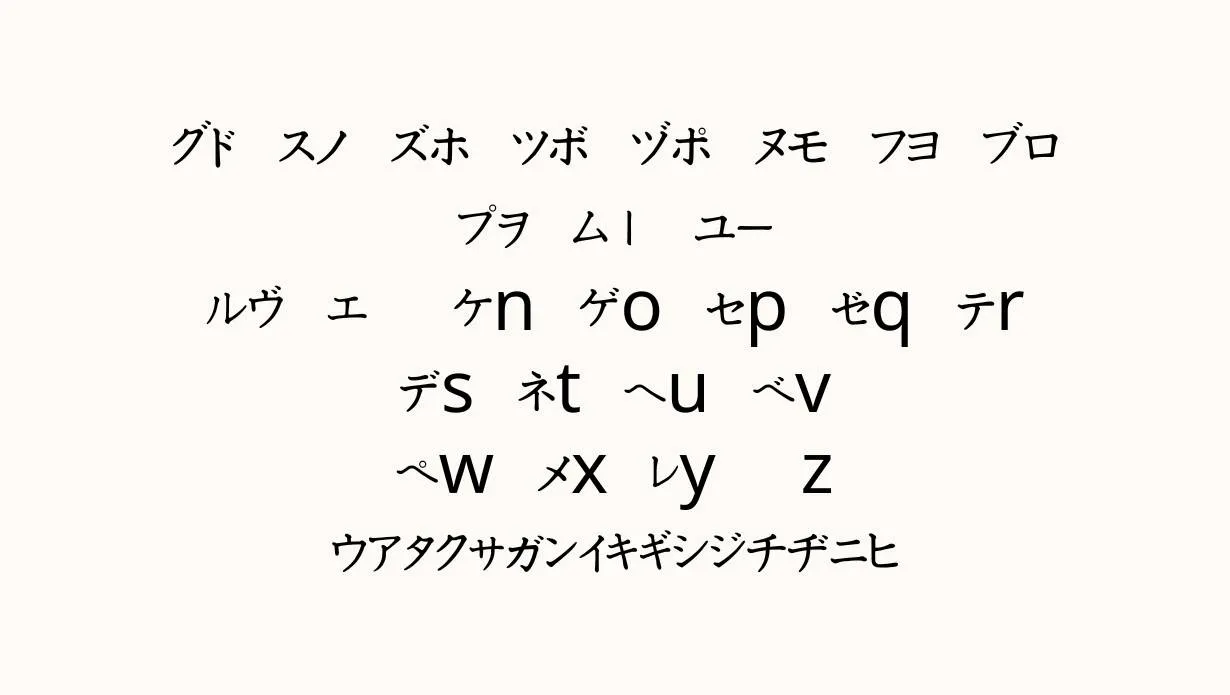
Katakana Font is designed for the Katakana script, one of the syllabaries used in the Japanese writing system.
It’s often used in design work that includes Japanese text, ensuring that Katakana characters are accurately and attractively represented. To add an extra touch of attractiveness to your design project, try combining this font with the Crazy Crow Font or any other unique typeface.
| Designer | Nagumo |
| Style | Dingbats |